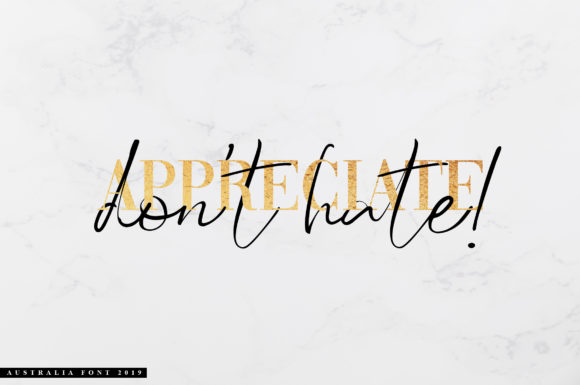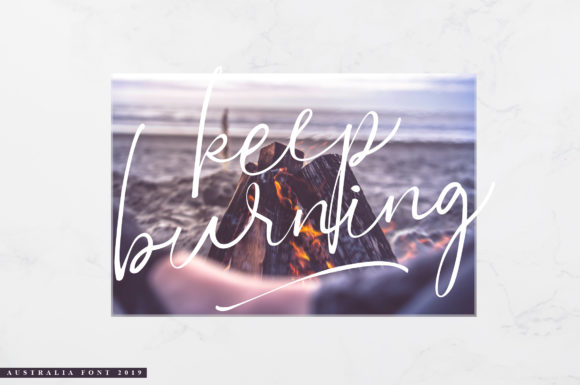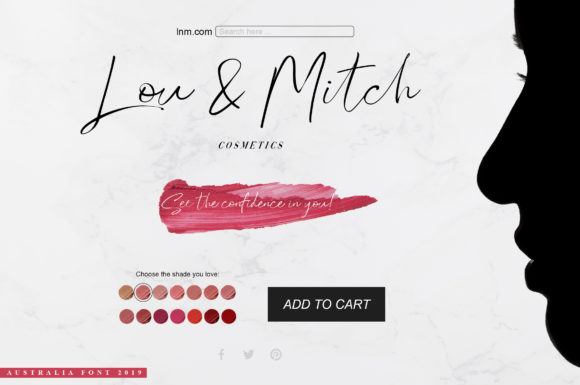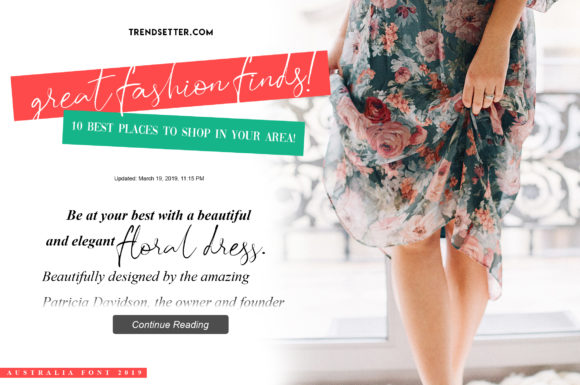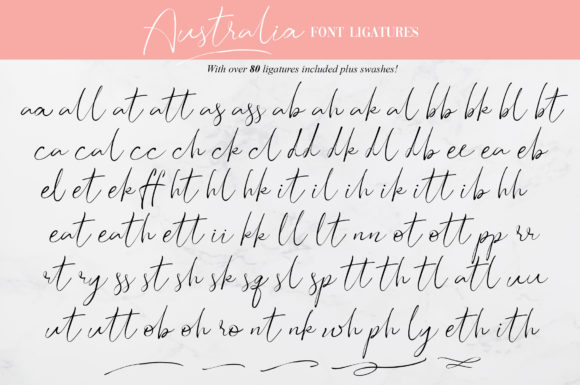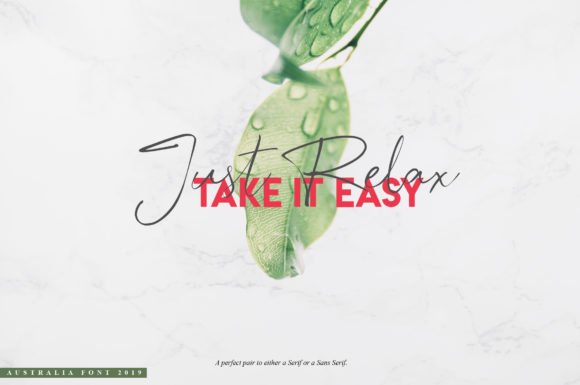
The Handwritten Touch: Discovering the Australia Script Font
As designers, we’ve all been there – staring at a blank page, struggling to find the perfect font to bring our vision to life. And then, it hits us – the perfect handwritten touch that elevates our design from ordinary to extraordinary. For many, this moment comes with the discovery of the Australia Script Font.
With its thick-to-thin strokes and realistic feel, the Australia Script Font is designed to mimic the elegance of a fountain pen. Its versatility makes it a perfect pair to any sans serif or serif font, making it an ideal choice for a wide range of designs, from cosmetics and fashion blogs to invitation cards and photography projects.
For designers, the Australia Script Font offers a valuable resource that can add a personal and sophisticated touch to any project. Its unique appeal makes it a standout choice for branding, logos, magazines, identity, and videos, setting it apart from more generic fonts.
- Unique Characteristics: Elegant script font with a modern, cursive feel, ideal for wedding invitations, logos, and other creative projects
- Font Style: Script, cursive, handwritten
Designer Review: Australia Script Font
Overall, the Australia Script Font has its charm. ✨ The elegant, cursive design makes it perfect for adding a touch of sophistication to your designs. It’s a great choice for branding, advertising, or any project where you want to convey a sense of elegance and refinement. ✨ The font is also highly legible, even at smaller font sizes, making it a great option for body text.
However, there are some limitations to consider. ⚠️ The font can be a bit too ornate for some designs, which may make it harder to read. Additionally, the font may not be the best choice for projects where you need a bold, attention-grabbing font. ⚠️ It’s also worth noting that the font may not be as versatile as some other script fonts on the market.
- Elegant, cursive design perfect for branding and advertising
- Highly legible, even at smaller font sizes
- May be too ornate for some designs
- Not ideal for bold, attention-grabbing projects
- May not be as versatile as other script fonts
Overall, the Australia Script Font is a solid choice for designers who want to add a touch of elegance to their projects. While it may have some limitations, it’s a great option for branding, advertising, and other projects where sophistication is key.
The Australia Script Font is ideal for creating elegant and sophisticated designs, making it perfect for:
- Special occasion cards and gift tags
Remember to pair the Australia Script Font with a clean and simple background to let the font be the focal point of your design.